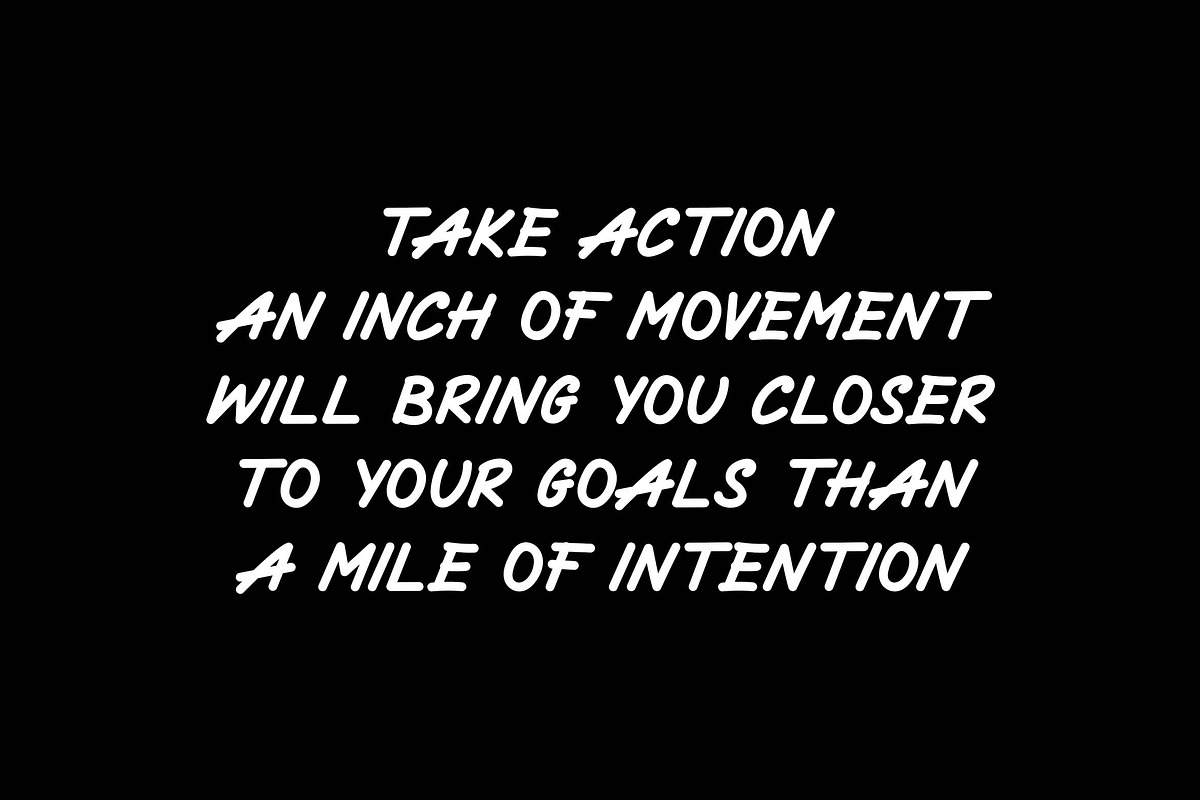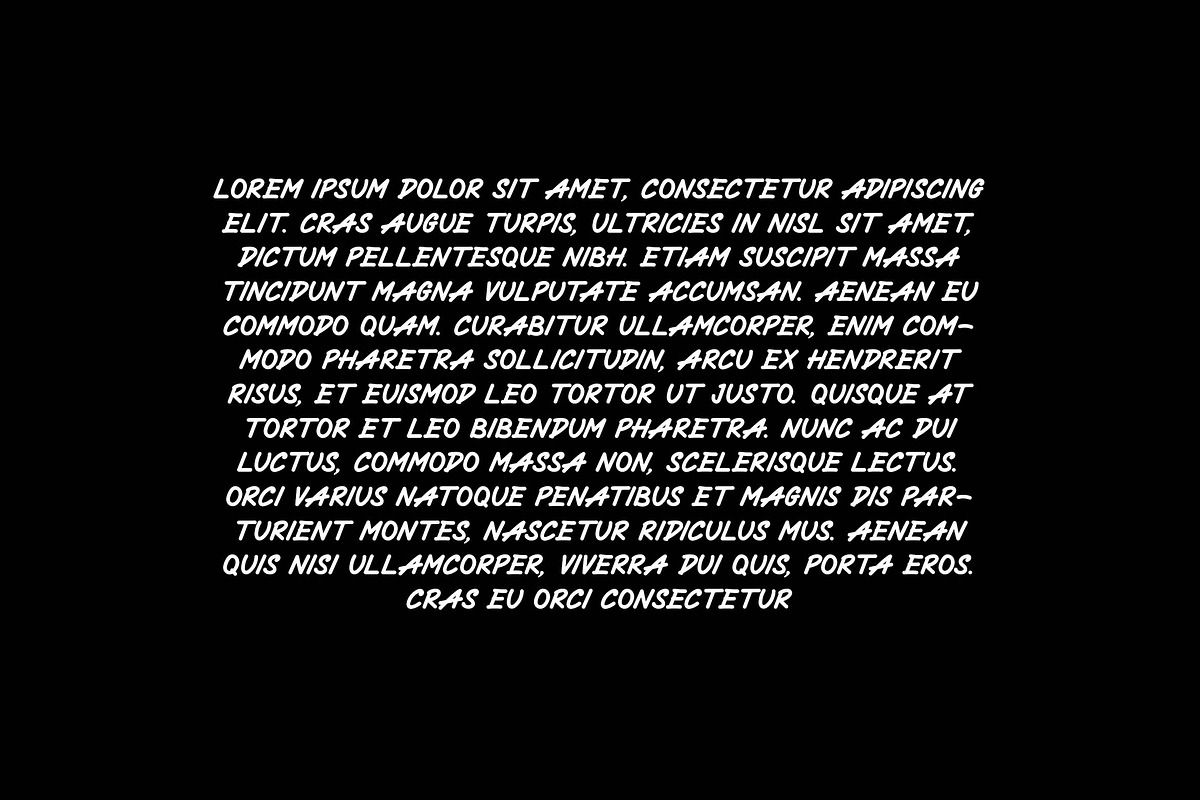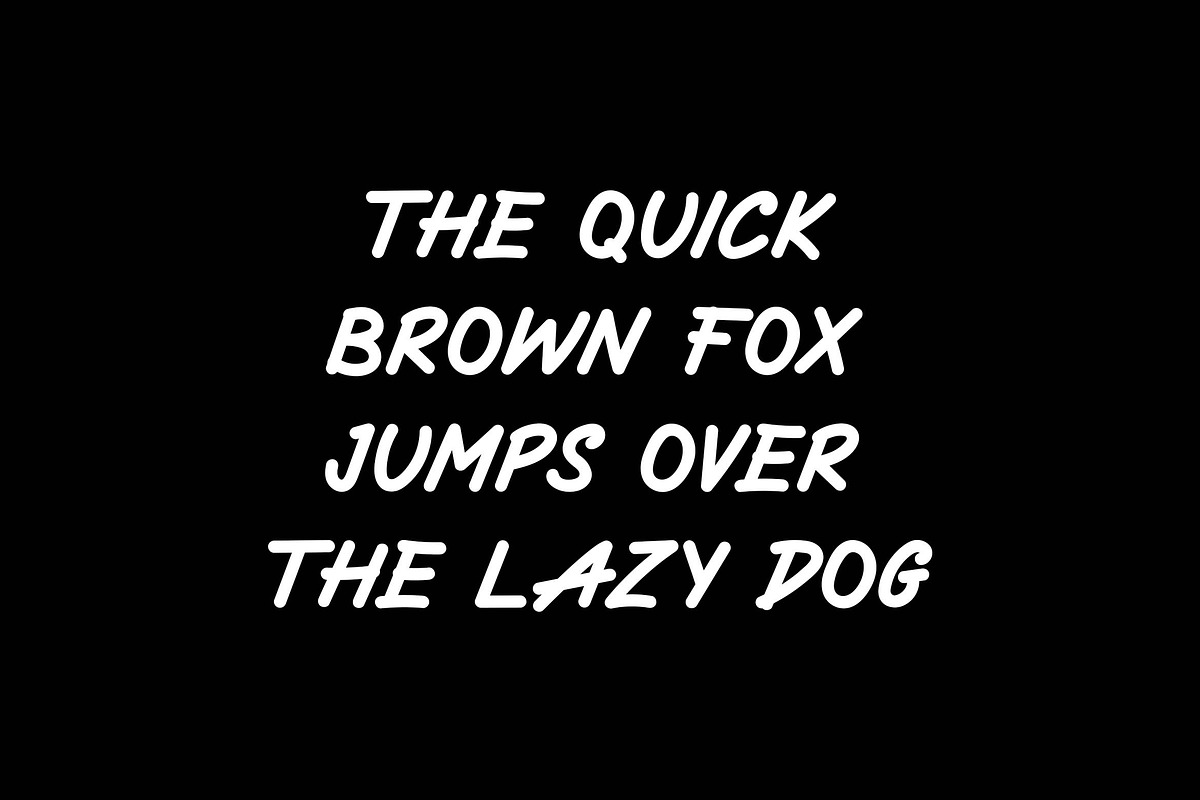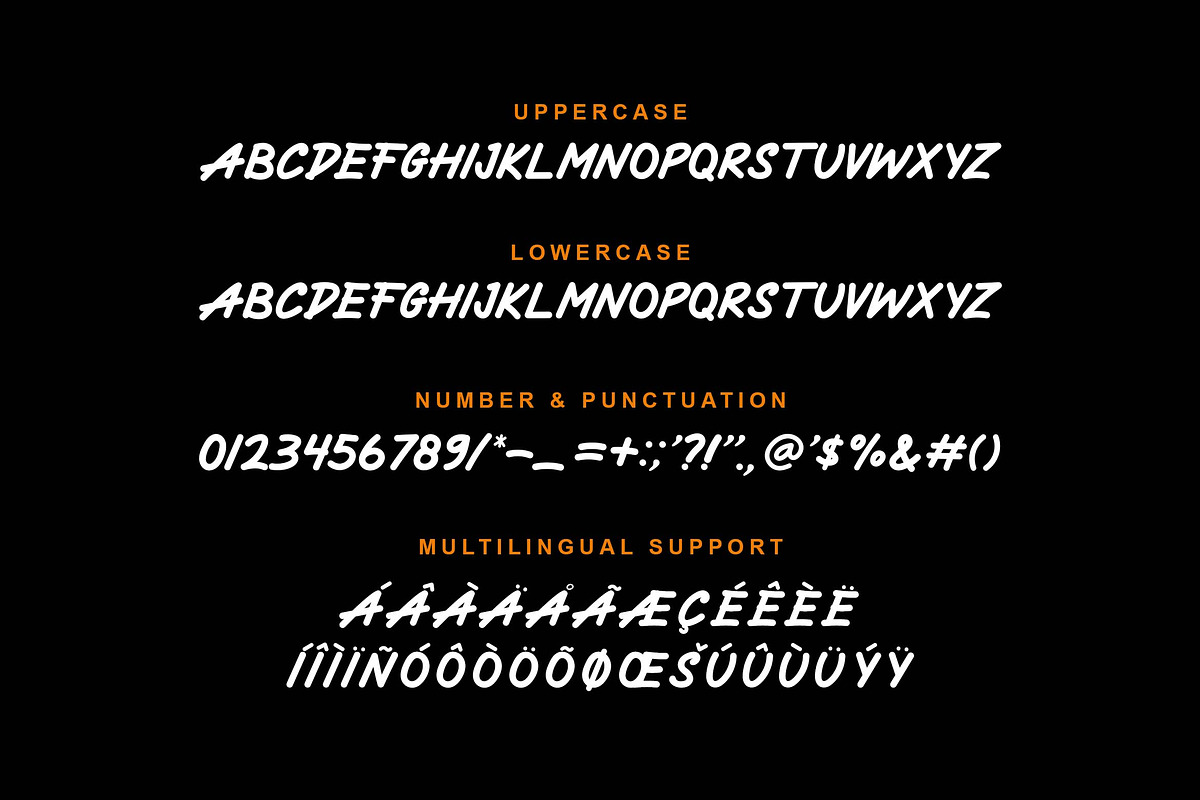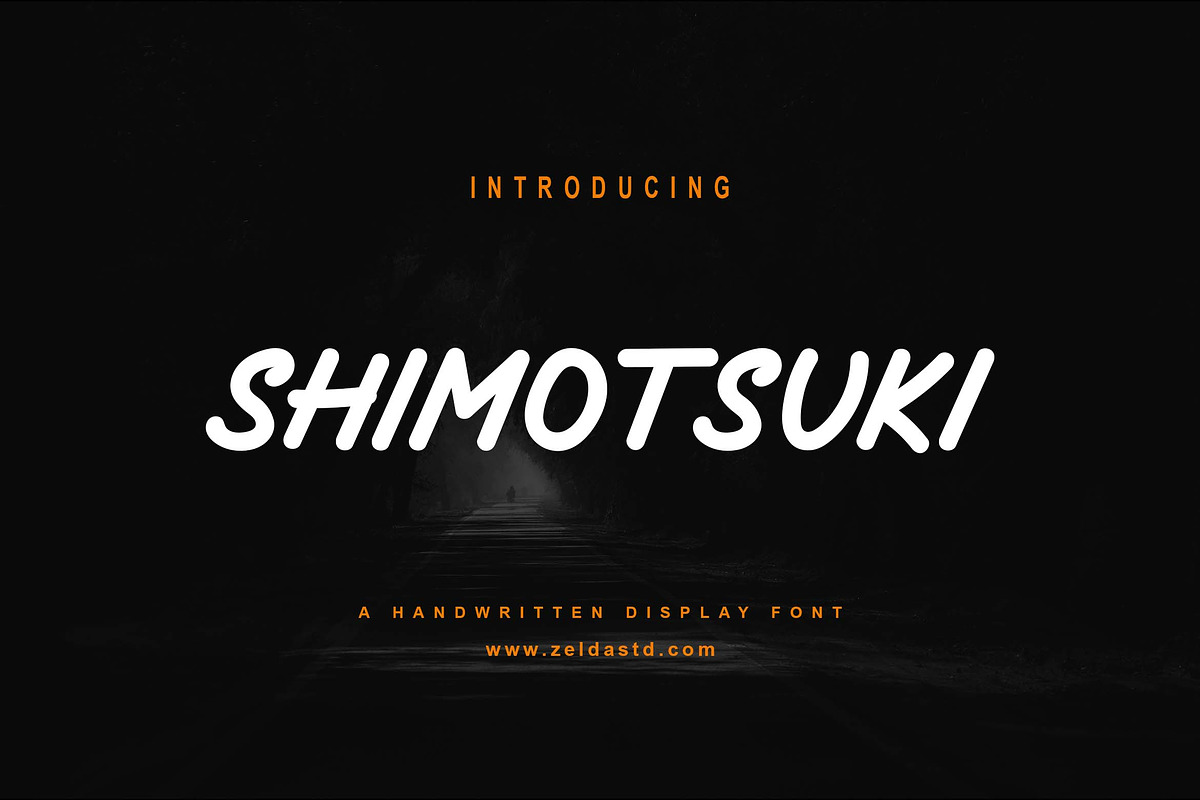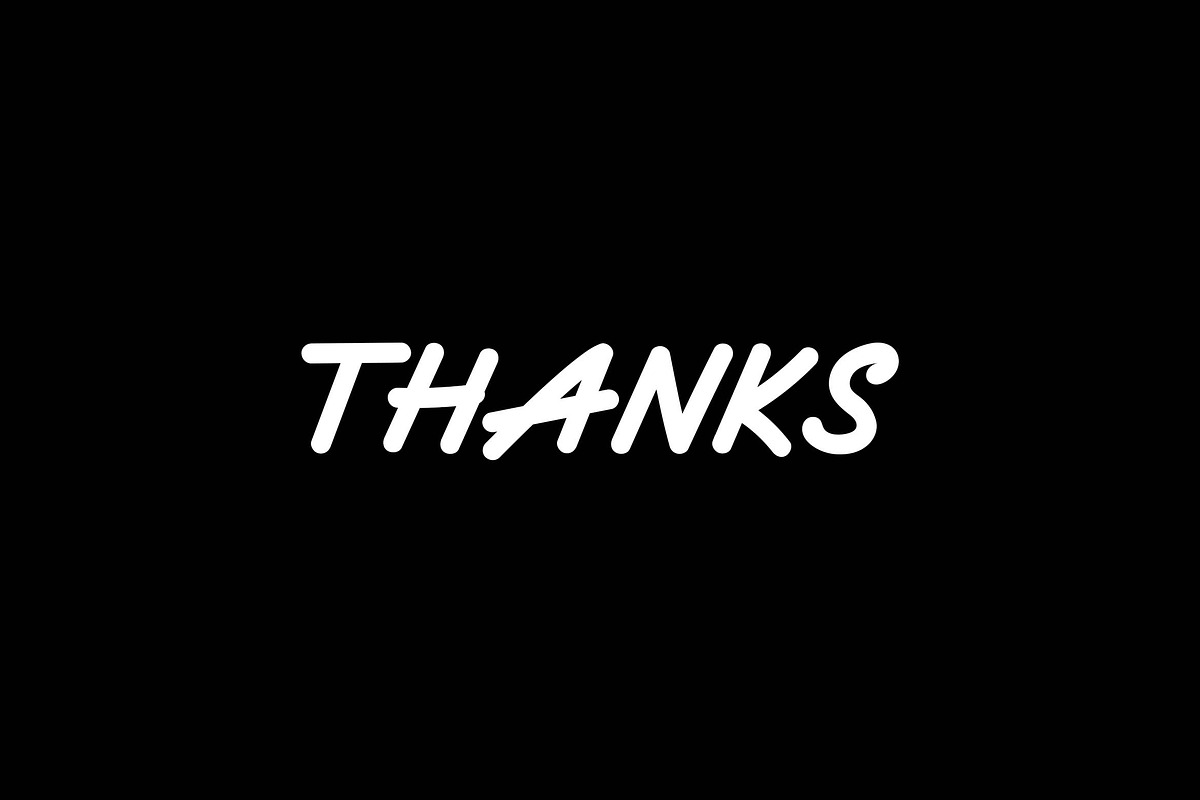
Shimotsuki Font
Shimotsuki is a cute and fun script font with a strikingly authentic feel font is our new item that is suitable for your Posters. Great for Logo, Poster, Sticker, Jerseys, Invitation Cards, Brochure, etc.